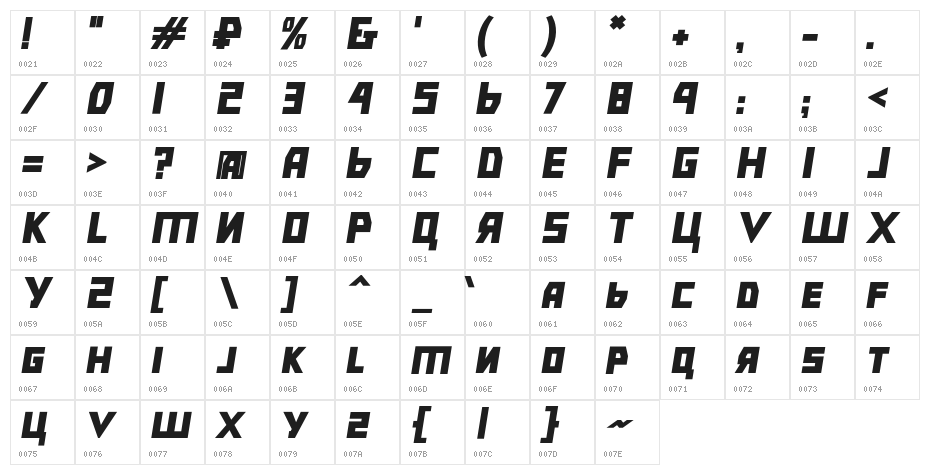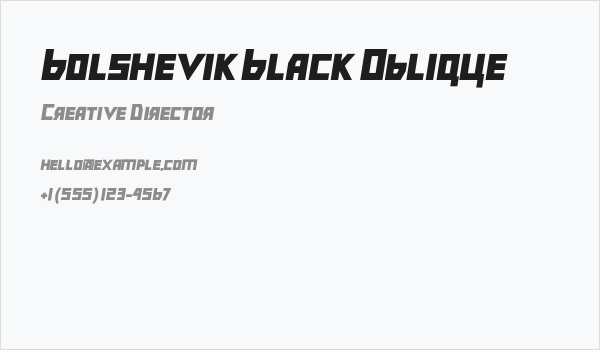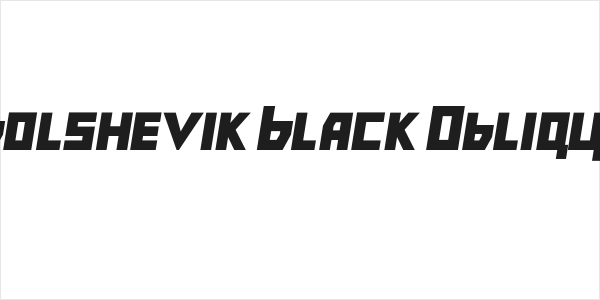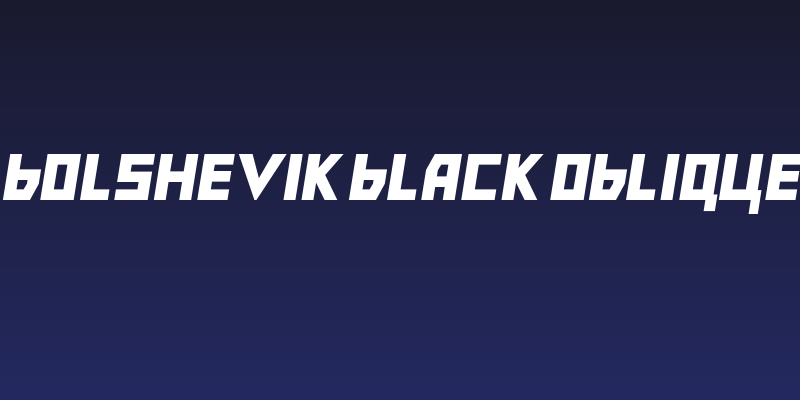
Bolshevik Black Oblique Font
Bolshevik Black Oblique Description
This typeface features a bold and dynamic style with a strong geometric influence. The characters are sharply angled, giving them a futuristic and industrial feel. The oblique slant adds a sense of motion and urgency, making it ideal for attention-grabbing headlines. The uppercase and lowercase letters maintain a consistent weight, ensuring readability while retaining a unique aesthetic. The numerals and special characters are designed to complement the overall style, with a bold presence that matches the letters. This font is perfect for projects that require a modern and assertive look.
| Proposed Projects | Ideal for branding, posters, video game graphics, and any project needing a modern, bold statement. |